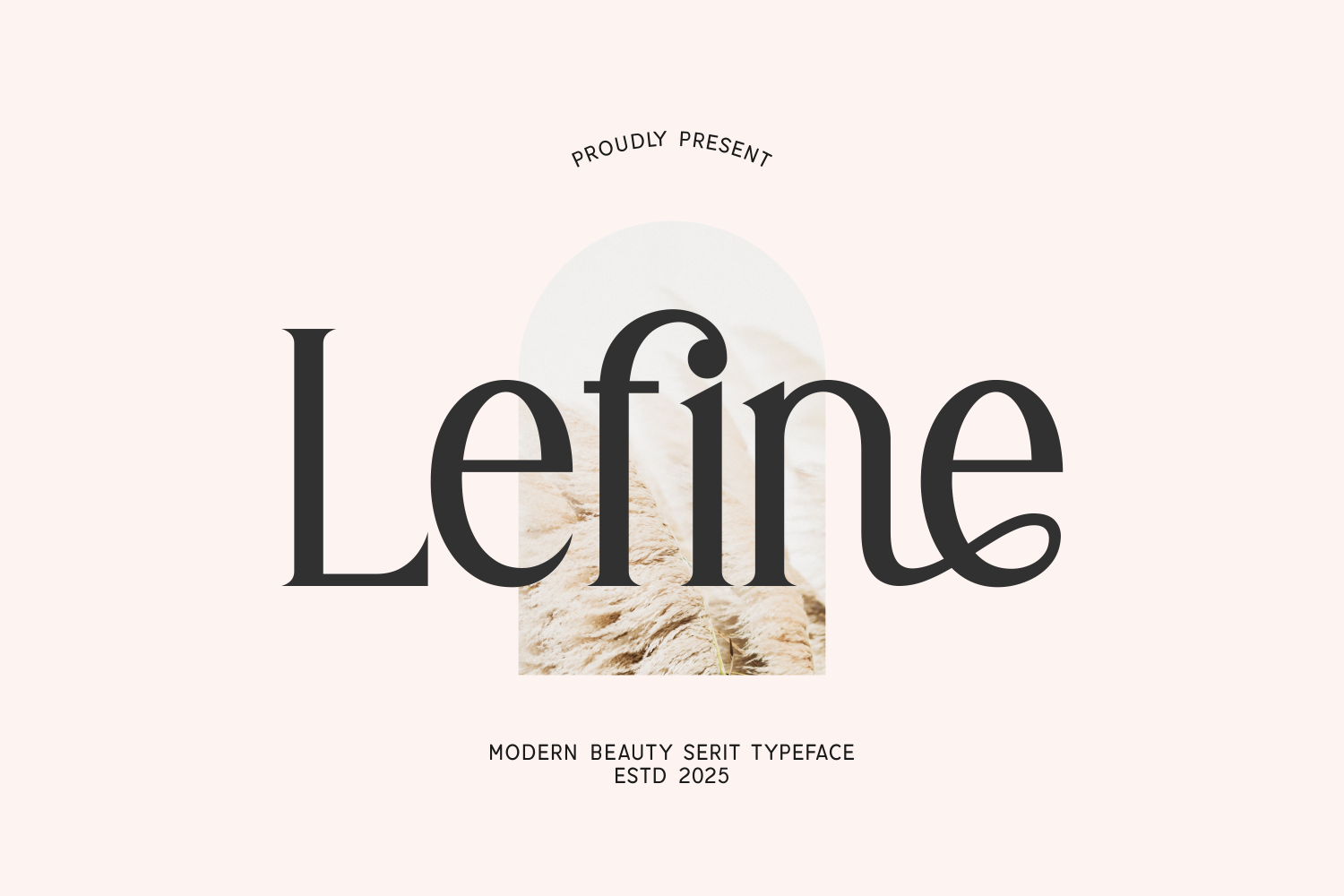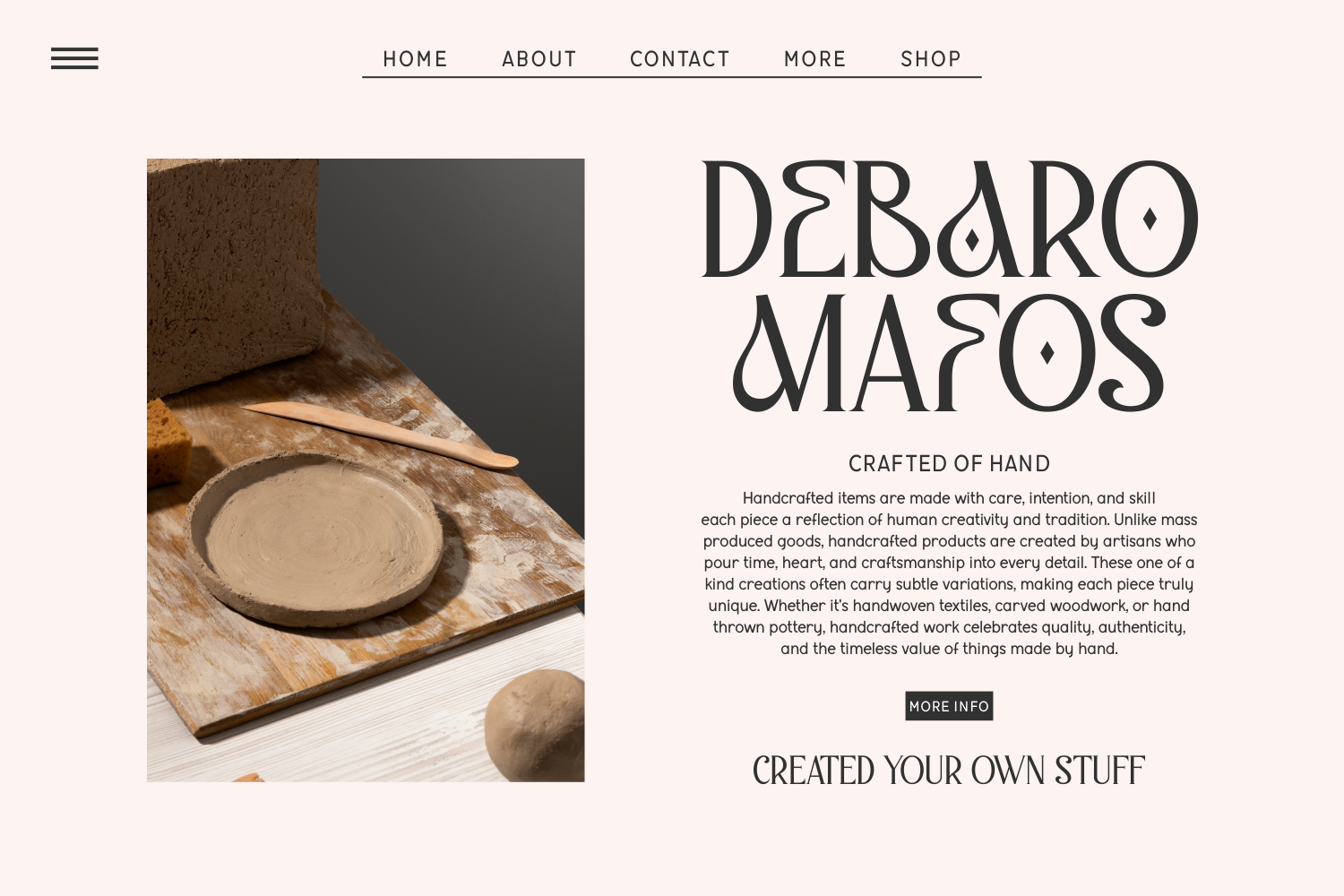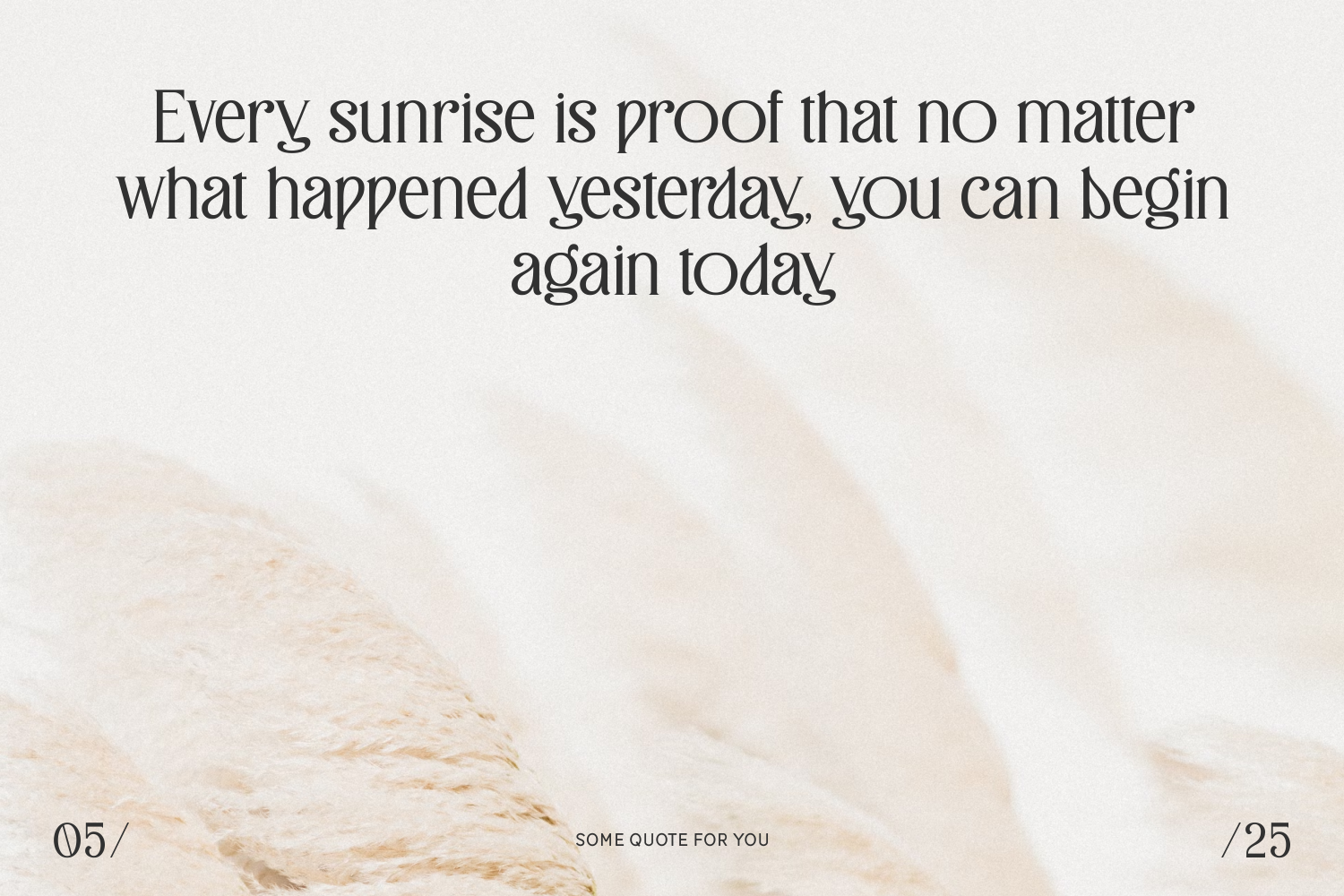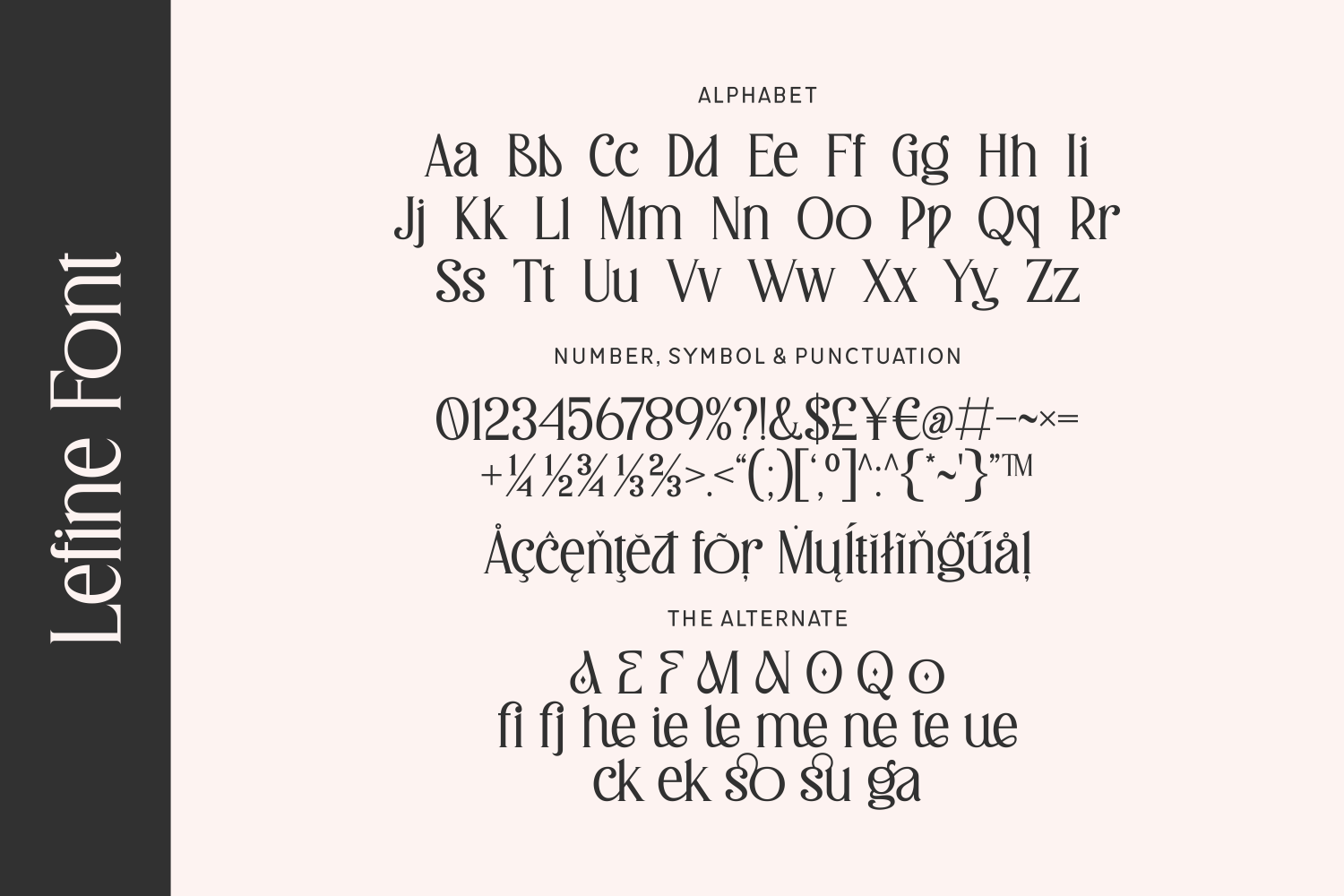
Lefine is a modern serif font that blends minimal elegance with artistic flair. Designed with graceful curves, refined strokes, and distinctive alternates, this typeface brings a luxurious and handcrafted feel to contemporary design.
With full multilingual support, alternate characters, and detailed punctuation, Lefine is both practical and expressive. Whether you're building a chic logo or an inspirational quote layout, Lefine turns words into a visual experience.